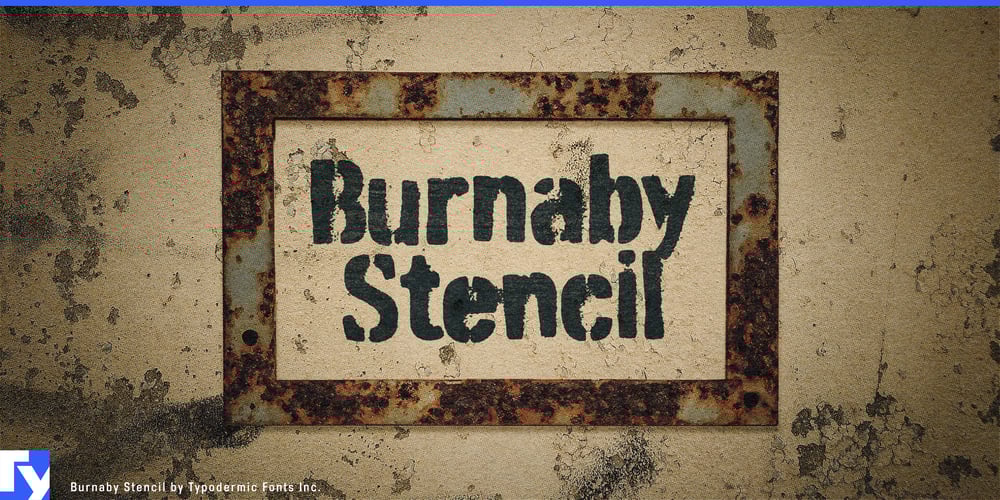
Burnaby Stencil
Burnaby Stencil font
Burnaby Stencil Font Family was designed by Ray Larabie and published by Typodermic. Burnaby Stencil contains 1 styles and family package options. Step into the urban jungle with Burnaby Stencil, a typeface that doesn’t just speak—it roars. This font family captures the raw essence of street art, bringing the gritty authenticity of spray-painted stencils to your digital canvas. With its bold strokes and unmistakable presence, Burnaby Stencil transforms ordinary text into a visual statement that demands attention.Burnaby Stencil isn’t just about looking tough; it’s about conveying messages with the unfiltered honesty of the streets. Its characters stand proud and unapologetic, ready to amplify your voice across billboards, posters, or any medium crying out for an injection of urban edge. But don’t mistake its boldness for rigidity—this typeface has tricks up its sleeve. In OpenType-savvy applications, Burnaby Stencil reveals its true versatility. Custom letter pairs seamlessly alternate, mimicking the natural variations of hand-painted type. This subtle dance of characters breaks the mold of digital uniformity, imbuing your text with the organic feel of authentic street art. It’s this attention to detail that elevates Burnaby Stencil from mere font to typographic storyteller.Burnaby Stencil’s linguistic reach is as expansive as its visual impact. From the cobblestone streets of old Europe to the bustling markets of Africa, this font speaks the language of urban culture across a vast array of Latin-based writing systems. Whether you’re crafting a message in Polish or Portuguese, Swahili or Swedish, Burnaby Stencil ensures your words carry the same raw power and authenticity.Choose Burnaby Stencil when you need typography that doesn’t just sit on the page but leaps off it. It’s for designers who understand that sometimes the medium is the message—and that medium should be as bold and unyielding as the ideas it represents. With Burnaby Stencil, your words don’t just make an entrance; they kick down the door and announce their presence with authority.